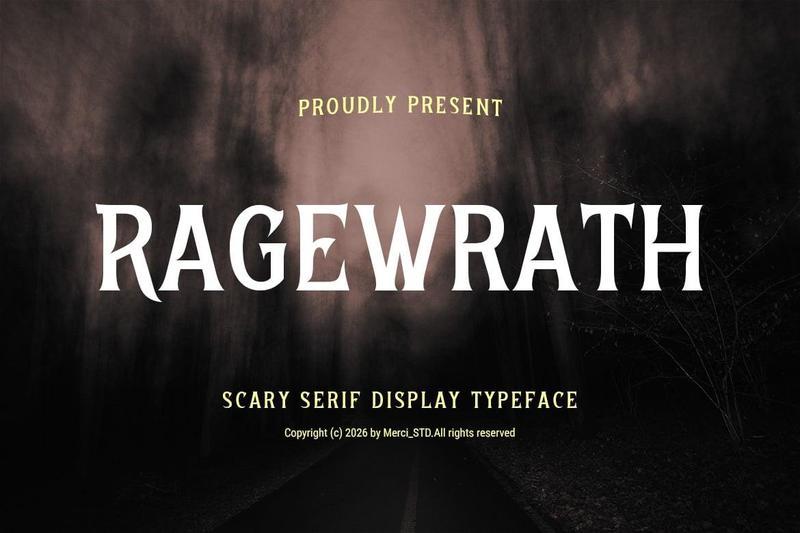
Ragewrath – Scary Serif Display Font QVEGYYD
Ragewrath Scary Serif Display Font QVEGYYD
Ragewrath is a scary serif display font featuring sharp details and a dark atmospheric appearance. Perfect for horror projects, thriller titles, book covers, movie posters, Halloween graphics, fantasy artwork, and dramatic branding. Its elegant yet unsettling serif construction creates a memorable visual presence that balances sophistication with fear.
* Unique Hand-Drawn Style